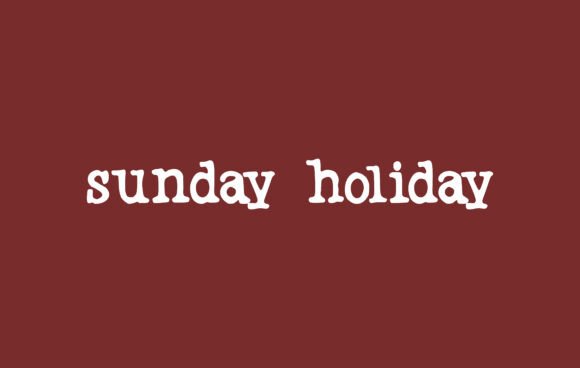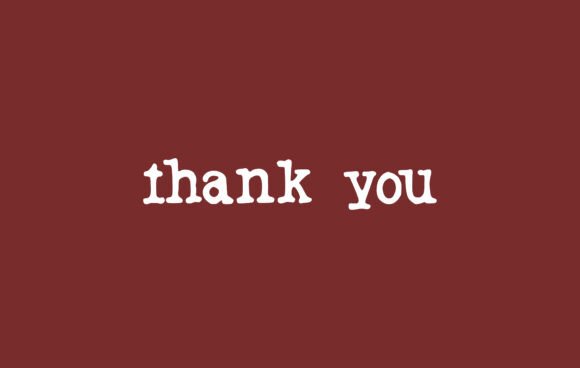
Discover the Charm of Alaska Font: Elevate Your Designs with a Romantic Touch
In the world of typography, fonts play a crucial role in bringing creative ideas to life. For designers and crafters, finding the perfect font can be a daunting task. However, if you’re looking for a font that exudes romance and sophistication, look no further than the Alaska Font. This authentic font is expertly designed to capture the hearts of designers and audiences alike, making it a true favorite for various design projects.
The Unique Characteristics of Alaska Font
Alaska Font boasts a romantic touch that sets it apart from other fonts. Its legibility and versatility make it an excellent choice for a wide range of design applications. Whether you’re working on magazine headlines, social media graphics, branding materials, wedding invitations, or cards, this font is sure to impress. Its elegant and refined appearance ensures that your designs will stand out and leave a lasting impression.
Why Designers and Crafters Love Alaska Font
So, what makes Alaska Font a favorite among designers and crafters? Here are a few reasons:
- Legibility: Alaska Font is designed to be easy to read, making it perfect for body text and titles. Its clear and concise appearance ensures that your message is conveyed effectively.
- Versatility: This font is incredibly versatile, allowing you to use it for various design projects. From elegant wedding invitations to bold magazine headlines, Alaska Font adapts seamlessly to different contexts.
- Romantic Touch: The font’s romantic touch adds a touch of sophistication and elegance to your designs. Whether you’re creating a whimsical design or a formal one, Alaska Font is sure to bring a sense of charm and allure.
Design Ideas with Alaska Font
Now that you’ve fallen in love with Alaska Font, it’s time to explore its creative possibilities. Here are some design ideas to get you started:
- Wedding Invitations: Create stunning wedding invitations with Alaska Font as the centerpiece. Its romantic touch and elegant appearance make it perfect for formal and informal wedding designs.
- Magazine Headlines: Use Alaska Font to create eye-catching magazine headlines that grab attention. Its bold and refined appearance ensures that your headlines will stand out.
- Social Media Graphics: Elevate your social media graphics with Alaska Font. Create engaging and shareable content that showcases your brand’s personality and style.
- Branding Materials: Develop a cohesive brand identity with Alaska Font. Use it for logos, business cards, and other branding materials to create a consistent and sophisticated look.
Tips for Using Alaska Font Effectively
To get the most out of Alaska Font, here are some tips to keep in mind:
- Pair it with complementary fonts: Experiment with pairing Alaska Font with other fonts to create a unique and harmonious design.
- Play with font sizes: Use different font sizes to create visual hierarchy and emphasize important information.
- Experiment with colors: Alaska Font looks great in various colors. Experiment with different hues to find the perfect match for your design.
Alaska Font is a true gem in the world of typography. Its romantic touch, legibility, and versatility make it an excellent choice for designers and crafters. Whether you’re working on a wedding invitation, magazine headline, or social media graphic, this font is sure to elevate your design to new heights. So, why wait? Discover the charm of Alaska Font and bring your creative ideas to life.